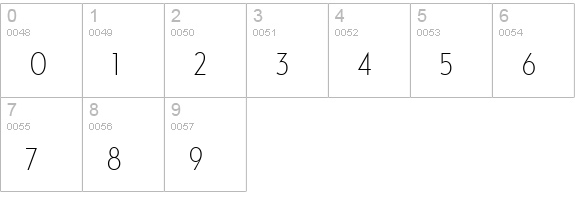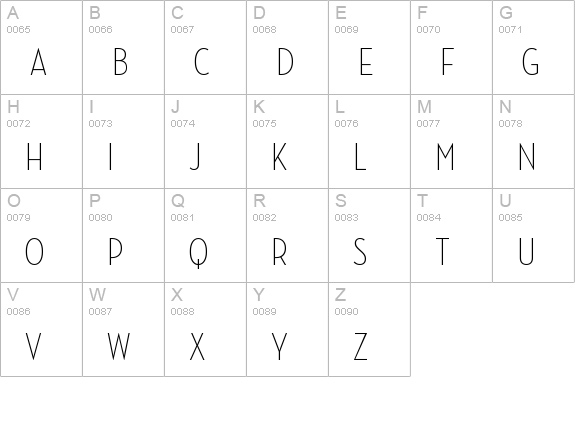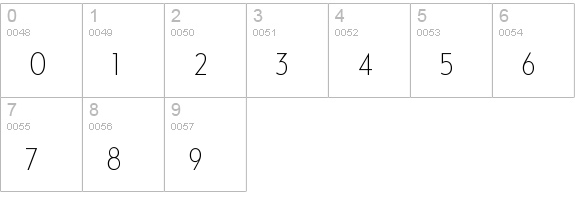
NeutrafaceCondensedPS-Light is a refined, elegant variant in the NeutrafaceCondensedPS typeface family \xE2\x80\x94 well suited to elegant body text, refined sub-headings, and luxury branding.
NeutrafaceCondensedPS-Light is a sleek and elegant font that exudes sophistication and modernity. Its condensed design gives a clean and precise look, making it perfect for a wide range of design projects. The light weight of the font adds a touch of delicacy and refinement to any text. What sets NeutrafaceCondensedPS-Light apart is that it is freely available for download at FontsMarket.com. This means that you can easily access this stylish font without any cost, making it a valuable addition to your font collection. Whether you're designing a logo, creating a website, or working on a print project, NeutrafaceCondensedPS-Light offers versatility and style that will elevate your design to the next level.